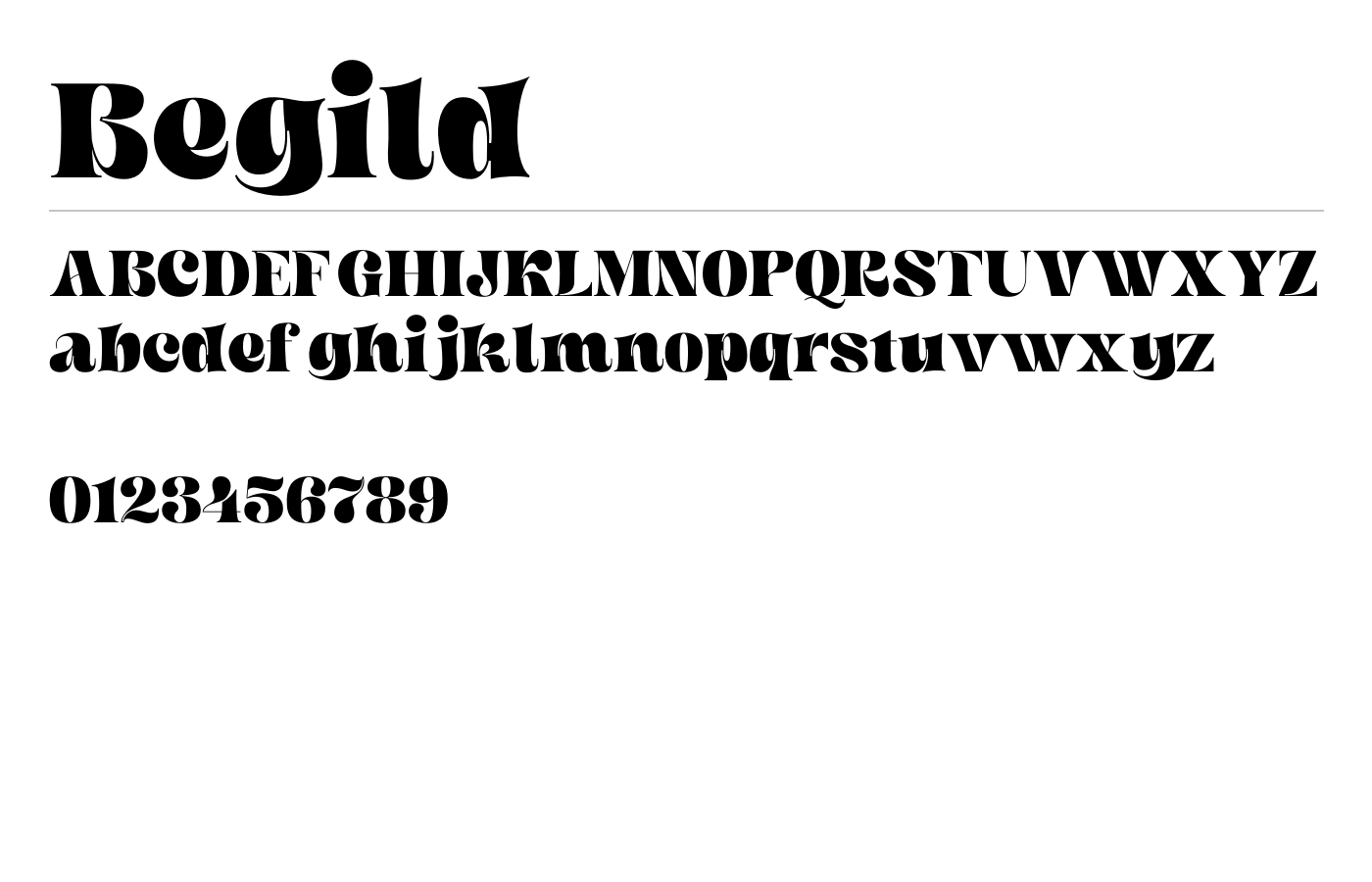
Begild is a bold serif font with a dramatic contrast between thick and thin strokes, featuring strong, bracketed serifs and a slightly condensed width. Its unique letterforms showcase playful curves and distinctive shapes, making it ideal for creating eye-catching headlines, logos, and decorative display text with a vintage, stylish flair. This font works best where a bold, sophisticated yet whimsical impression is desired.
Begild Font
About Begild Font